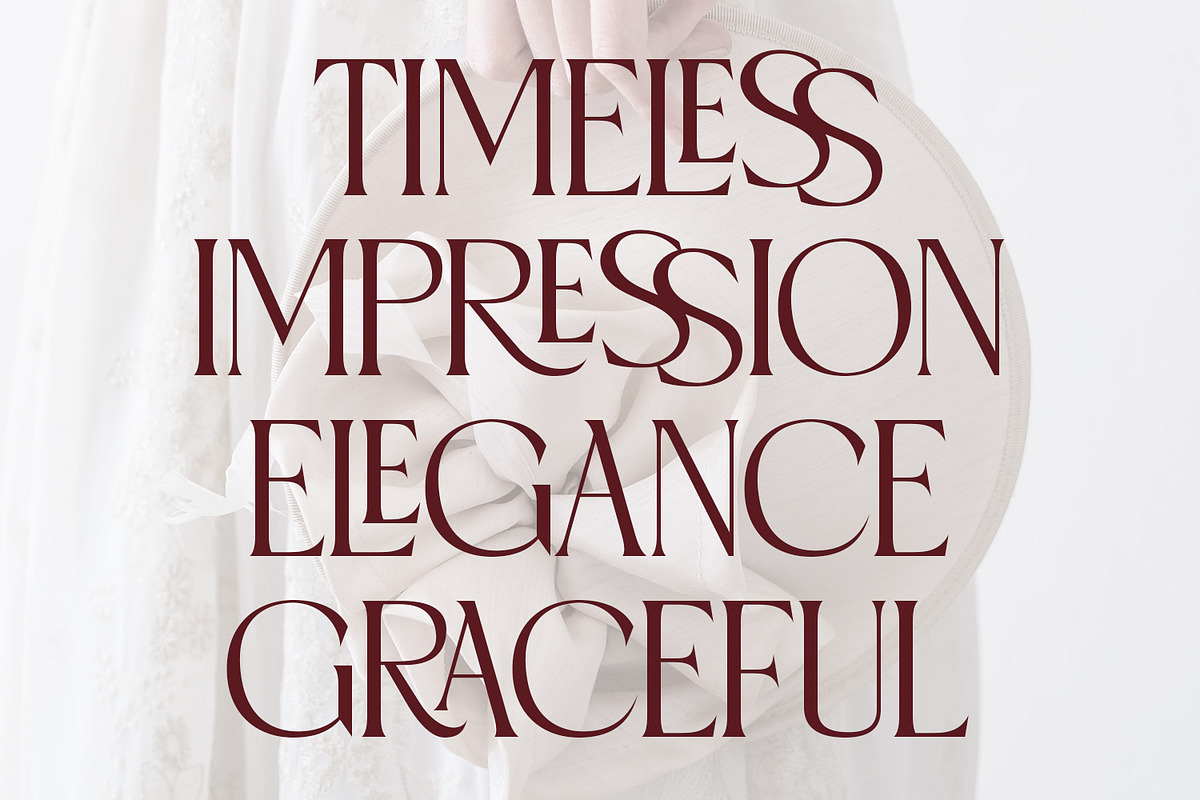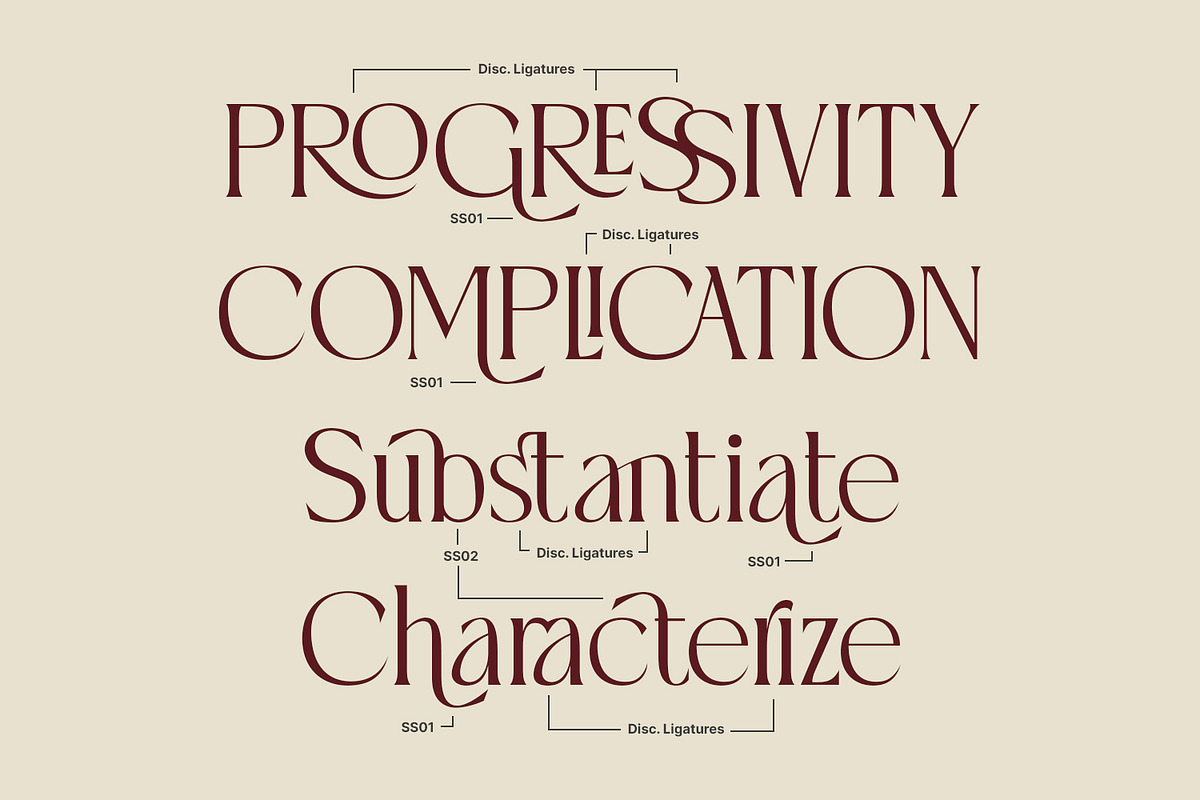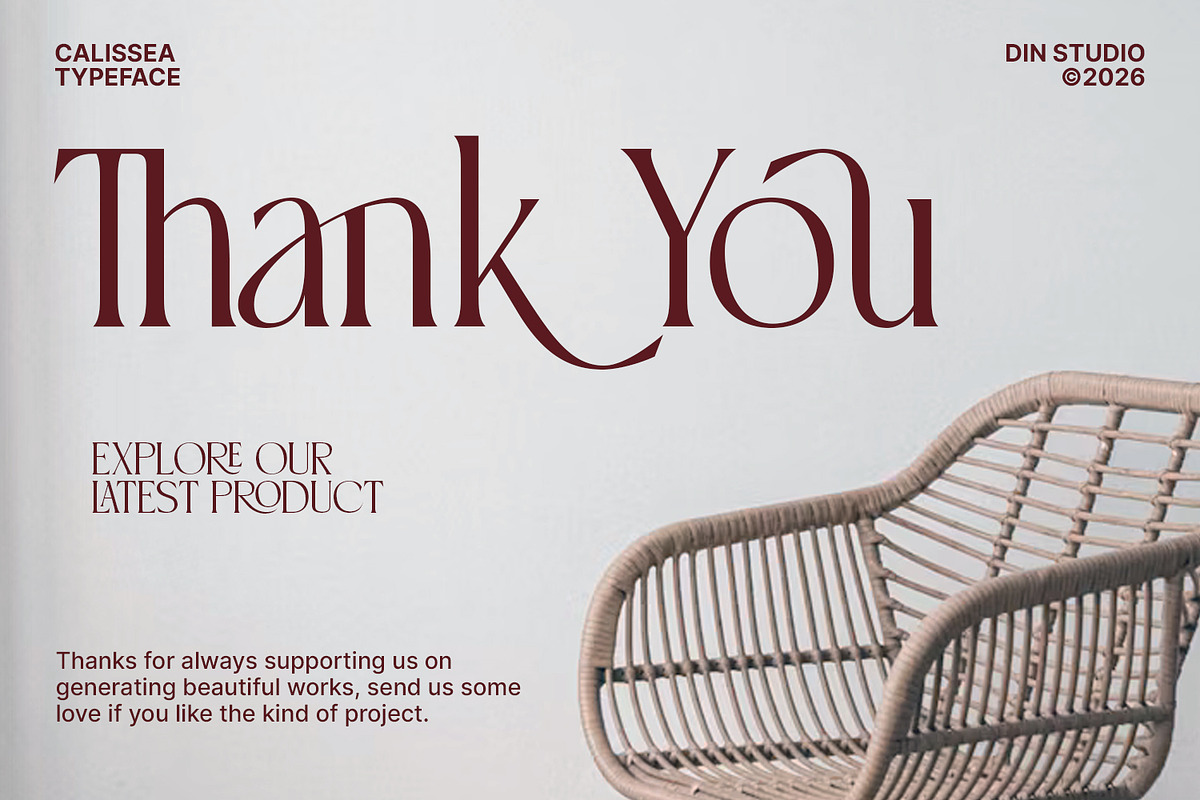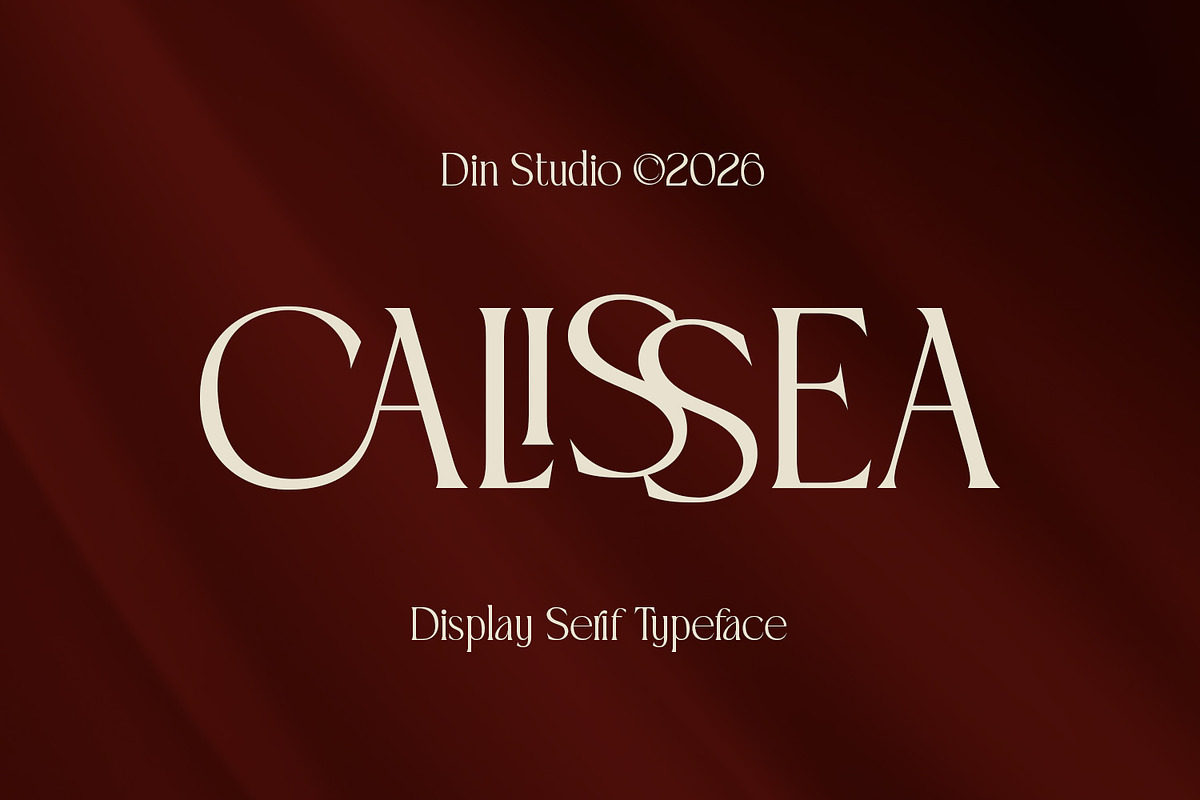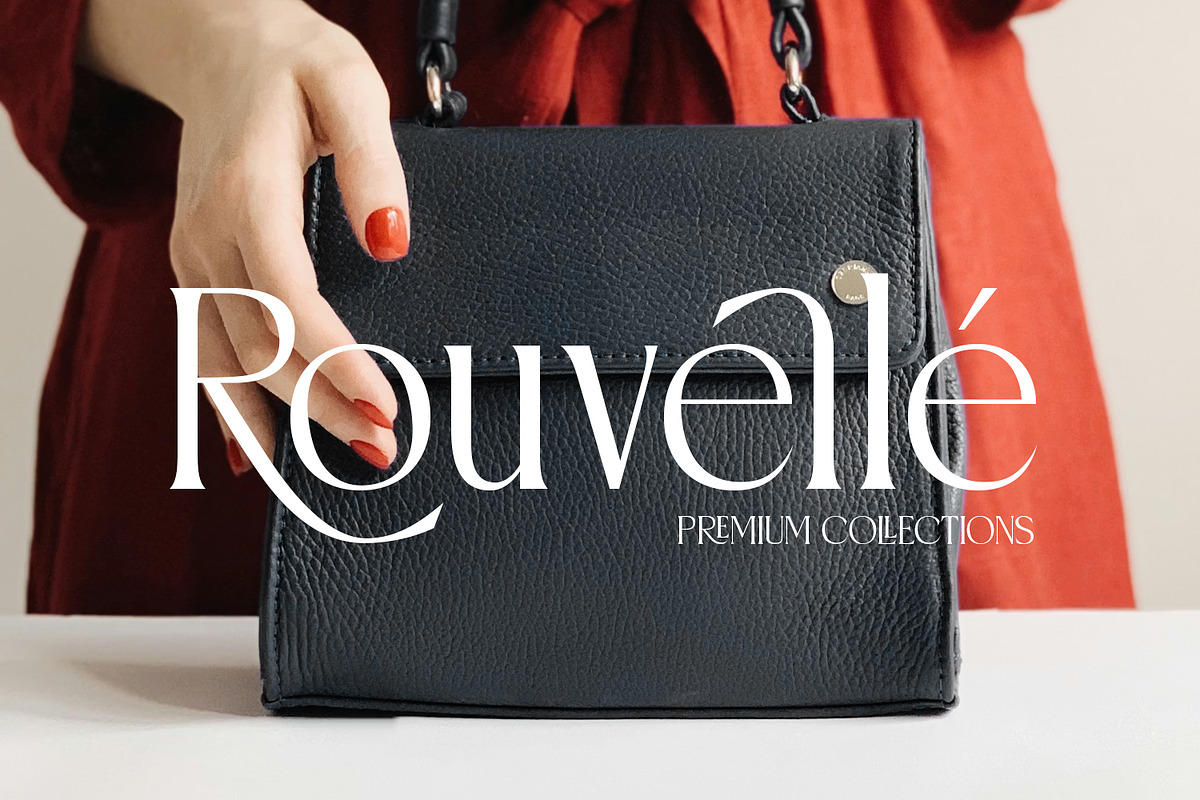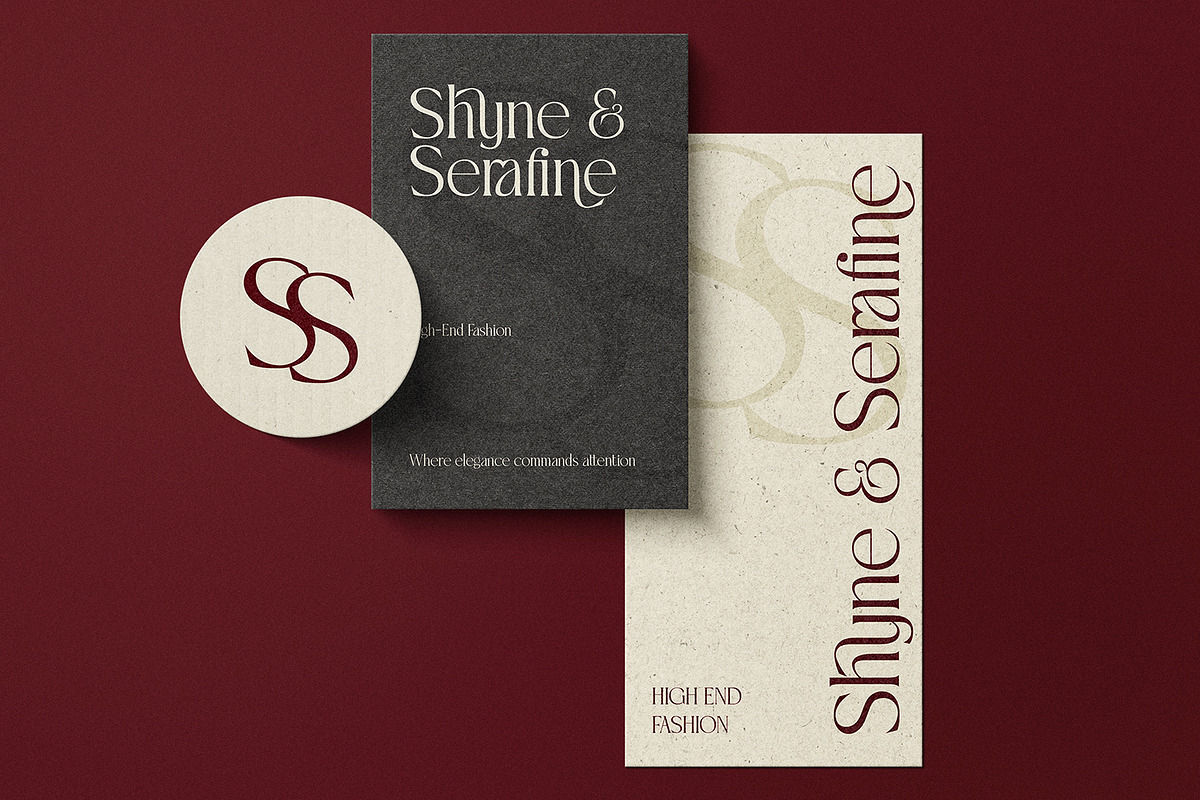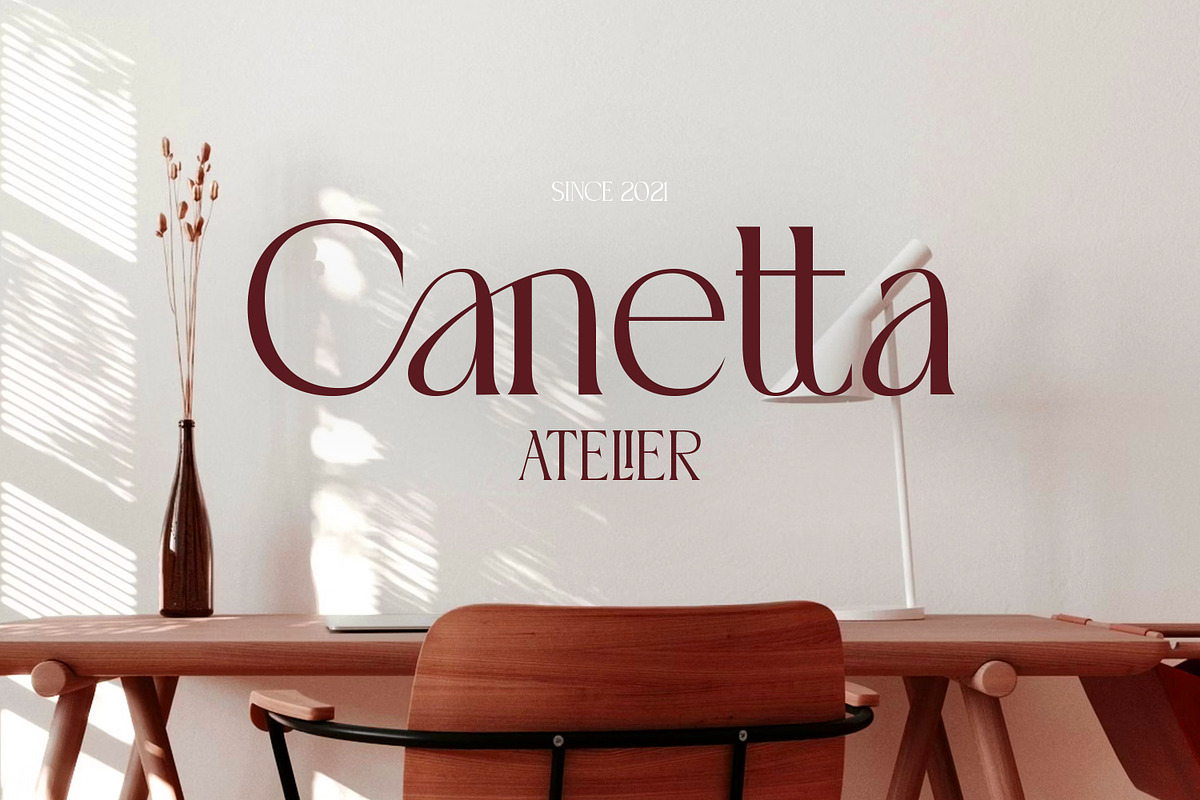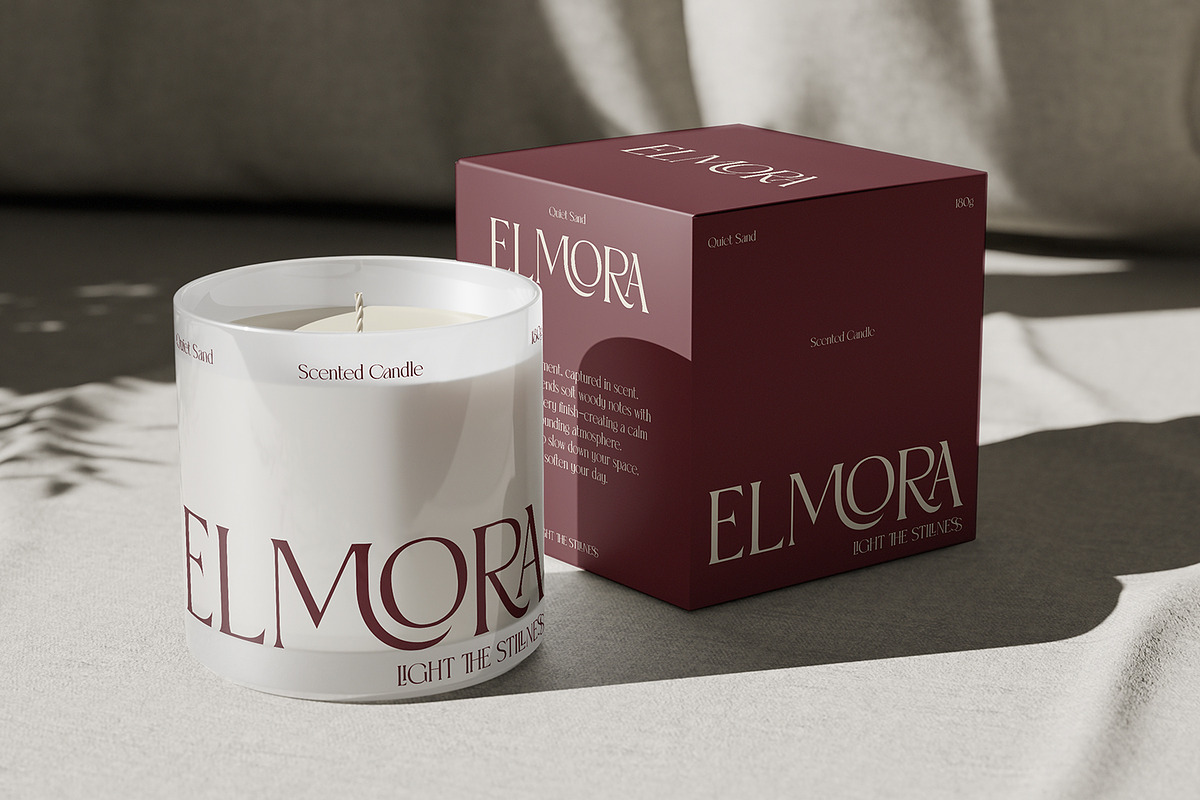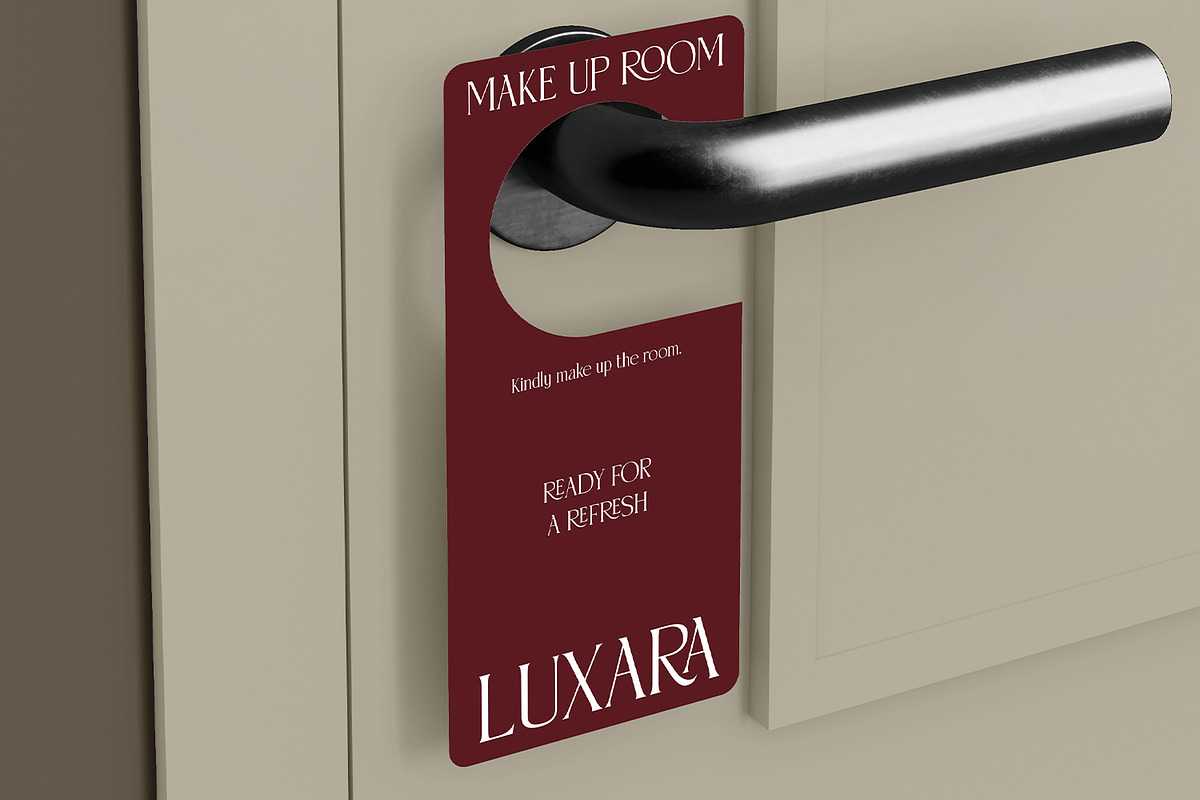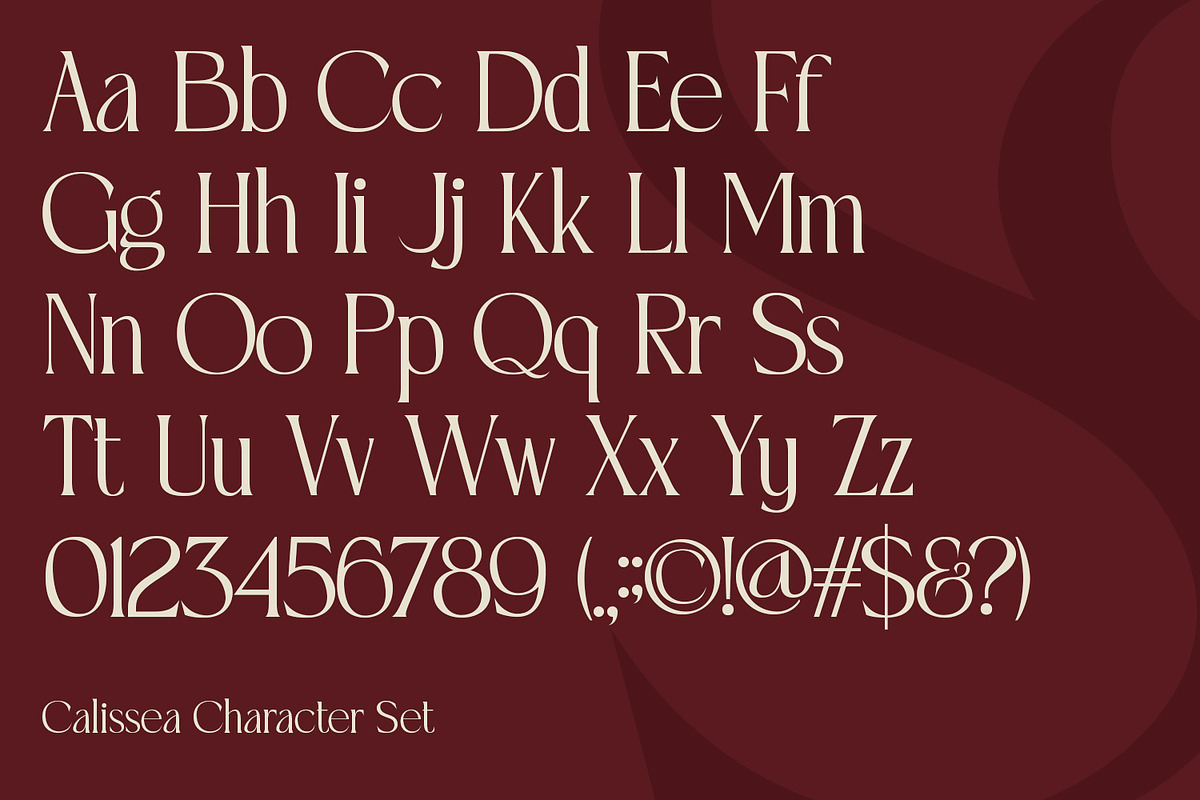
Calissea
Calissea is a sophisticated serif display font. With its delicate strokes and graceful structure, Calissea captures the essence of contemporary luxury while maintaining the timeless beauty of classic serif design. The defining characteristic of Calissea lies in its thin, refined letterforms combined with noticeable contrast between thick and thin strokes. This contrast creates a dynamic and stylish rhythm, adding depth and visual interest to every character. In addition, enjoy the features here.
Stylistic Sets
Multilingual Supports
Numerals and Punctuations